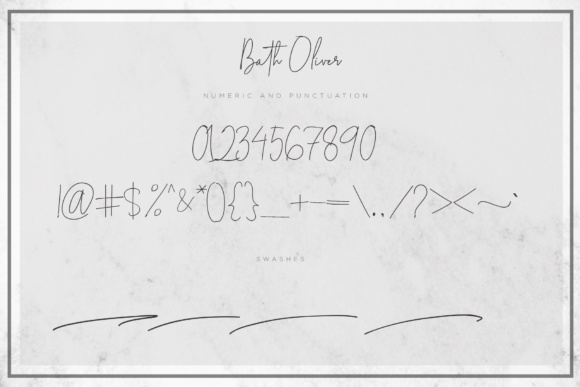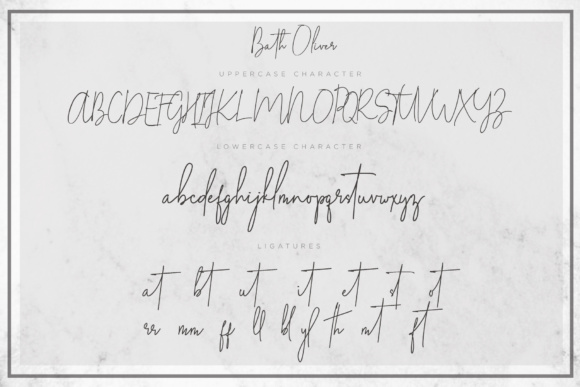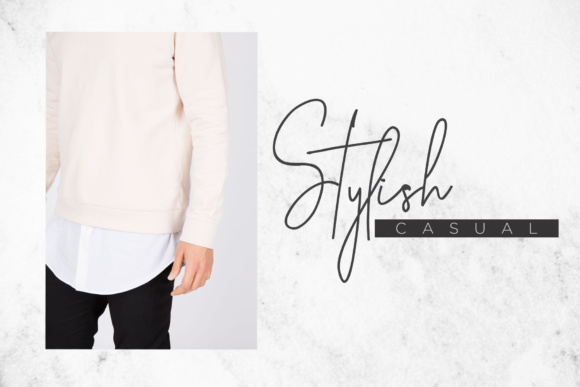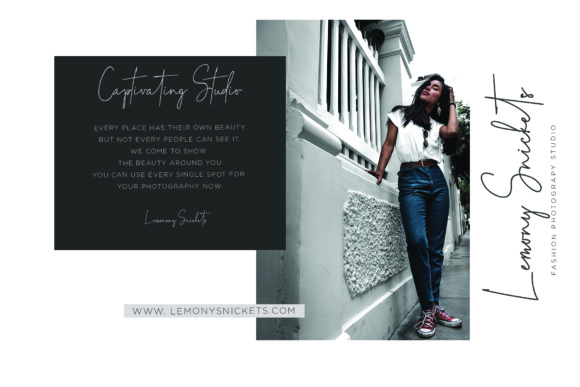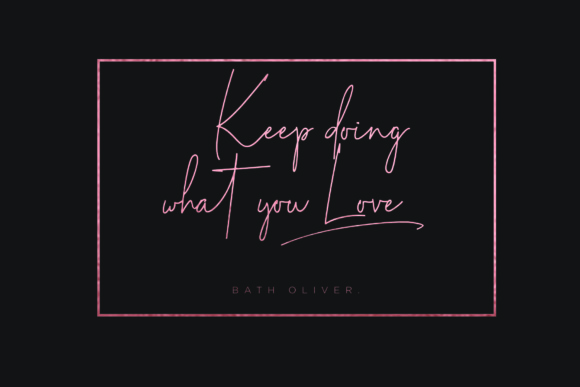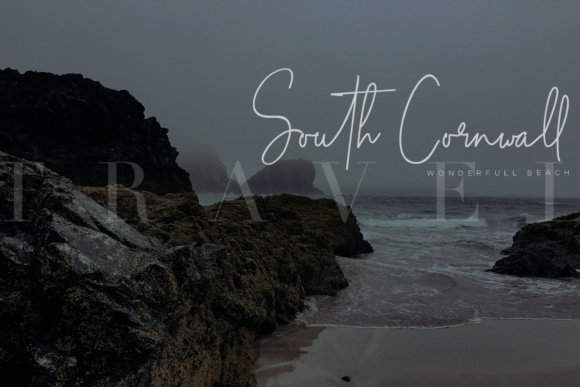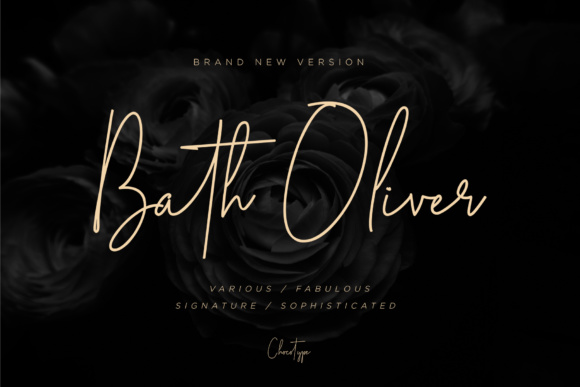
Slip into Sophistication: Discover the Elegance of Bath Oliver Font
Are you looking to elevate your designs with a touch of sophistication and elegance? Look no further than the Bath Oliver script font. This stunning font is perfect for designers and crafters who want to add a luxurious feel to their work. With its realistic, hand-lettered style and plethora of gorgeous characters, Bath Oliver is sure to become your go-to font for creating beautiful, high-end designs.
The Charm of Bath Oliver Font
Bath Oliver font is a script font that exudes refinement and poise. Its elegant, cursive letters are reminiscent of traditional calligraphy, making it perfect for designs that require a touch of classic sophistication. The font’s hand-lettered style gives it a personal, human touch that sets it apart from more generic, computer-generated fonts.
A Wealth of Characters at Your Fingertips
One of the standout features of Bath Oliver font is its extensive character set. With tons of gorgeous characters to choose from, you’ll have all the tools you need to create stunning designs that are truly one-of-a-kind. From elegant swashes to beautiful ligatures, this font has everything you need to add a touch of luxury to your work.
Bath Oliver font is incredibly versatile, making it perfect for a wide range of design projects. Whether you’re creating wedding invitations, branding materials, or packaging, this font is sure to add a touch of sophistication and elegance to your work. It’s also a great choice for crafters who want to create beautiful, professional-looking projects, such as handmade cards and gift tags.
Tips for Using Bath Oliver Font
To get the most out of Bath Oliver font, here are a few tips to keep in mind:
- Use it sparingly: While Bath Oliver font is incredibly beautiful, it can be overwhelming if used too much. Try using it as a headline or title font, and pairing it with a simpler font for body text.
- Experiment with different colors: Bath Oliver font looks stunning in a variety of colors, from rich jewel tones to elegant metallics. Don’t be afraid to experiment and find the perfect color to match your design.
- Take advantage of swashes and ligatures: The swashes and ligatures in Bath Oliver font are truly beautiful, and can add an extra touch of elegance to your designs. Try using them to add a decorative flourish to your work.
Why Designers and Crafters Love Bath Oliver Font
So why do designers and crafters love Bath Oliver font? Here are just a few reasons:
- It’s elegant and sophisticated: Bath Oliver font is the perfect choice for designers and crafters who want to add a touch of luxury to their work.
- It’s versatile: This font can be used for a wide range of design projects, from wedding invitations to packaging.
- It’s easy to use: Despite its elegant appearance, Bath Oliver font is incredibly easy to use, even for those who are new to design.
If you’re looking to elevate your designs with a touch of sophistication and elegance, look no further than Bath Oliver font. With its realistic, hand-lettered style and extensive character set, this font is sure to become your go-to choice for creating beautiful, high-end designs. Whether you’re a designer or crafter, Bath Oliver font is the perfect choice for anyone who wants to add a touch of luxury to their work.
Get Ready to Slip into Something More Sophisticated